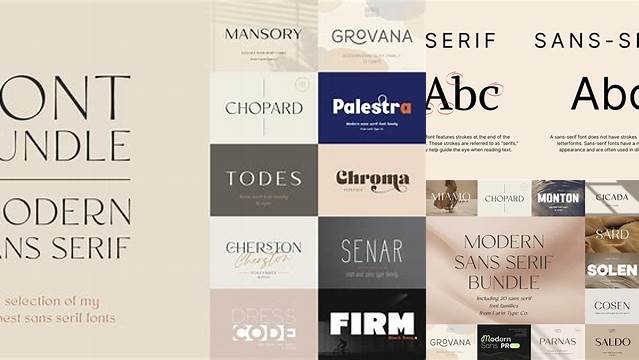
Modern Sans Serif Fonts: Examples & Best Practices
Hey there, font fanatics! Ever wonder what makes a modern sans serif font tick? Well, you're in luck! We're diving deep into the world of modern sans serif fonts, exploring some killer examples, and giving you the lowdown on how to use them like a pro. Forget those stuffy serifs; we're all about clean lines, readability, and a touch of contemporary flair. So, grab your favorite beverage, settle in, and let's get this font party started!
What Exactly Are Modern Sans Serif Fonts, Anyway?
Alright, guys, let's break it down. Modern sans serif fonts are those sleek, no-frills typefaces that have ditched the little decorative strokes (serifs) at the ends of their letters. Think of them as the minimalist cousins of the font family. They're all about simplicity, clarity, and a decidedly modern aesthetic. These fonts have become super popular in the digital age because they're incredibly readable on screens, which is a huge win for websites, apps, and pretty much anything you're viewing on your phone or computer. They're also fantastic for print, offering a clean and uncluttered look that's easy on the eyes. We’re talking about fonts that say, "I'm here, I'm clear, and I mean business." The beauty of modern sans serif fonts lies in their versatility. They can be bold and attention-grabbing or subtle and sophisticated, depending on the design's needs. This flexibility has made them a favorite among designers for everything from logos and branding to body text and headlines. The core principle is readability and a clean, modern appearance. This approach makes these fonts a go-to choice for conveying a message clearly and efficiently in today’s fast-paced world. The rise of digital interfaces and the emphasis on user experience has only amplified the importance of these font choices.
Top Modern Sans Serif Fonts You Gotta Know
Okay, let's get to the good stuff: the fonts themselves! Here are some of the most popular and widely used modern sans serif fonts, along with their characteristics and ideal uses. We're talking about the rockstars of the font world, the ones you'll see popping up everywhere. We’re covering the big names and a few hidden gems that can really elevate your designs. Each font has its own personality and strengths, so you can choose the perfect one for your project.
1. Helvetica: The Undisputed King
Ah, Helvetica. The name alone probably conjures up images of Swiss design and a sense of timelessness. This font is a true icon, a modern sans serif font that's been around since the 1950s and is still going strong. Helvetica is known for its clean, neutral look, excellent readability, and versatility. You can find it everywhere, from subway signs to corporate logos. Its ubiquity might make it seem a bit overused, but its classic design and ability to work well in various contexts are undeniable. Helvetica has a remarkable ability to convey information clearly and efficiently, making it an excellent choice for both body text and headlines. Designers love it for its neutrality, which means it doesn't compete with other design elements. Its variations in weight and style allow for a wide range of applications, providing a consistent and recognizable aesthetic across various platforms. Helvetica truly stands as a testament to the enduring appeal of a well-designed font.
2. Futura: Geometric and Graceful
Futura is the modern sans serif font that's all about geometry. Designed in the 1920s, its clean lines and perfect circles and triangles give it a distinct, modern feel. Futura has been used in countless applications, from the Apollo space missions to iconic logos like those of Volkswagen and Domino's Pizza. It's known for its elegance and sophistication, making it a great choice for projects that need a touch of class. The geometric construction of the font contributes to its visual appeal. Futura offers a timeless look that is both memorable and impactful, which suits a wide range of branding and design purposes. It’s perfect when you want to project a sense of forward-thinking and innovation. Its influence on design is undeniable, and it continues to inspire creativity among designers everywhere. The font's distinct personality makes it ideal for making a statement in everything from product packaging to website design, solidifying its place in the pantheon of classic fonts.
3. Gotham: The American Classic
Inspired by the signage of mid-20th-century America, Gotham is a modern sans serif font that exudes a sense of strength and straightforwardness. Its distinctive rounded letterforms and clean lines make it instantly recognizable. Gotham gained widespread fame after being used extensively in the Obama presidential campaign, which gave it a sense of approachable authority. It's a great choice for projects that need to convey a sense of trust and reliability. The font is incredibly versatile, working well in headlines, body text, and even on packaging. Its appeal lies in its accessibility and readability, making it an excellent selection for anything from print materials to digital interfaces. Gotham’s versatility extends to various weights and styles, enabling designers to maintain a consistent branding voice across numerous applications. The font provides a contemporary look while maintaining an air of familiarity, allowing brands to connect with audiences on a personal level. It's a timeless design that continues to be embraced by designers globally.
4. Open Sans: Web-Friendly and Versatile
Open Sans is a modern sans serif font designed specifically for use on screens. Its open, friendly appearance and excellent readability make it a top choice for websites and apps. Google Fonts hosts Open Sans, making it freely available and incredibly popular. Its design prioritizes usability, meaning that it's easy to read even at small sizes. This font is perfect for a wide range of digital applications, from long-form articles to user interface design. Open Sans's neutral appearance ensures it does not distract from the content. The font is versatile enough to pair with other fonts and design elements seamlessly, making it an excellent all-around selection. Open Sans's widespread adoption is a testament to its effectiveness in delivering content in a clear and accessible manner, contributing to a better user experience.
5. Montserrat: A City's Inspiration
Inspired by the architecture of the Montserrat neighborhood in Buenos Aires, this modern sans serif font is a geometric beauty with a touch of warmth. It's a great choice for projects that want to be both stylish and approachable. The font offers a wide range of weights and styles, allowing for a cohesive look across all design elements. Montserrat's distinctive character makes it suitable for a variety of applications, from branding to web design. The font's adaptability makes it a good fit for both large and small text, providing legibility and visual appeal. Montserrat embodies the blend of geometric precision and artistic expression that can enhance a design's overall impact. The font is continually updated to provide designers with versatile options for all their needs, keeping its relevance in the competitive design arena. It's a modern classic with a personal touch.
Choosing the Right Modern Sans Serif Font
Alright, now that you've met some of the font family, how do you actually pick the right modern sans serif font for your project? It's all about understanding your goals and the message you want to convey. Here are some things to keep in mind:
1. Consider Your Brand's Personality
Does your brand want to appear trustworthy and traditional, or edgy and innovative? The font you choose needs to align with your brand's voice and values. Think about the overall feeling you want to create and which font will best represent your brand. Consider what values or emotions your brand is supposed to reflect. A bold, geometric font might suit a tech startup, while a more classic, clean font might be better for a law firm. It is important to remember that the font is a vital component in establishing the emotional impact of your brand. Choosing the right font can dramatically improve how your audience perceives your message, making it more memorable and effective.
Conclusion: The Everlasting Appeal of Modern Sans Serif Fonts
So, there you have it, folks! We've covered everything from the basics of modern sans serif fonts to the best examples, design tips, and future trends. These fonts are here to stay. They're versatile, readable, and perfect for a wide range of design projects. Embrace the clean lines and modern appeal. Your designs will thank you! Remember to choose the right font for your brand. Always prioritize readability and consider the context. Happy designing!